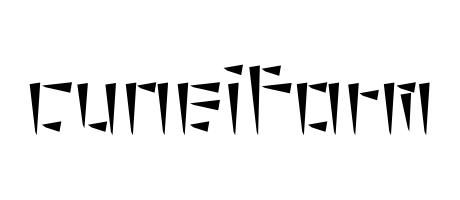
Cuneiform
EasyCuneiform: A bold, minimalist typeface echoing ancient cuneiform script. Its sharp, angular lines and consistent stroke weight create a sense of both history and modern graphic design. The glyphs, though simplified, retain the essence of the original wedge-shaped characters, offering a unique and visually striking aesthetic. It projects strength and a timeless quality.